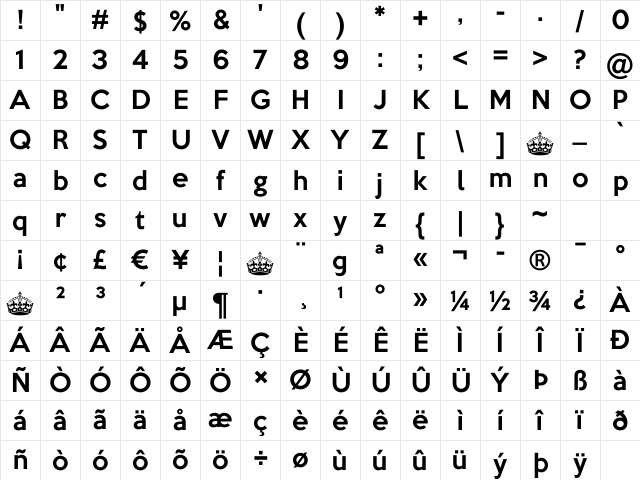
Keep Calm Med Regular Free Font
Keep Calm Med Regular
Designer: Keith Bates
Design Context for Keep Calm Med
Keep Calm Med is a composed and adaptable typeface that performs quietly and consistently across a wide range of design contexts.